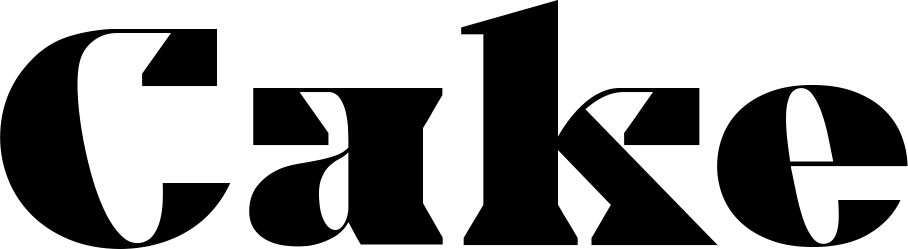
Cake Font
Creativity in Cake is an element that can make any graphic content very attractive and increase the efficiency of the content. Cake is a retro font. This font has a very interesting design that conveys a sense of excitement and freshness to the audience. If you use this serif block font in your logo or poster, the efficiency of your content will increase.